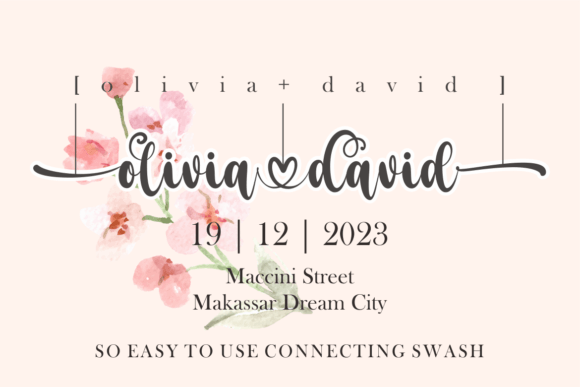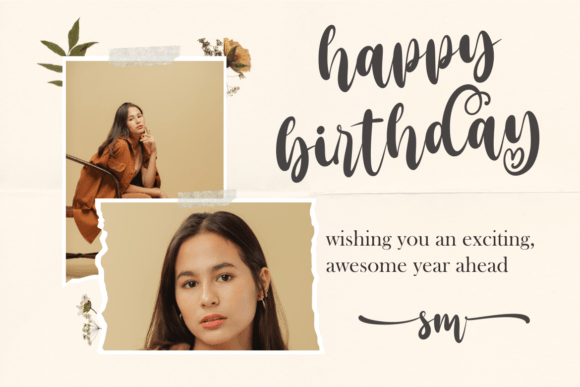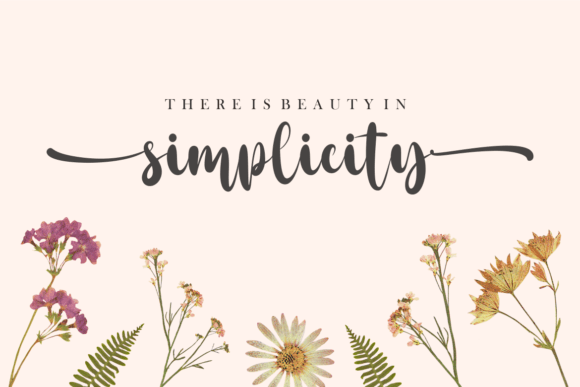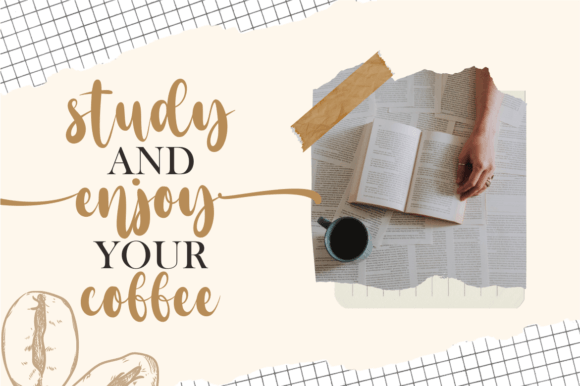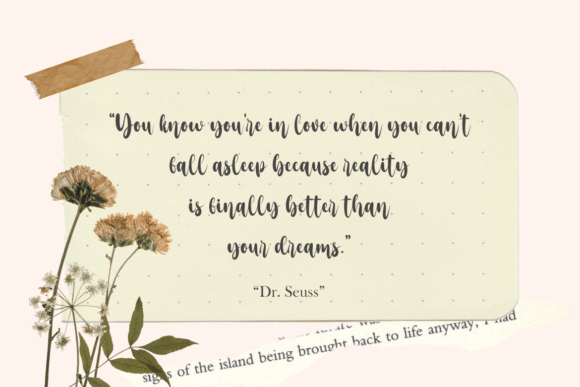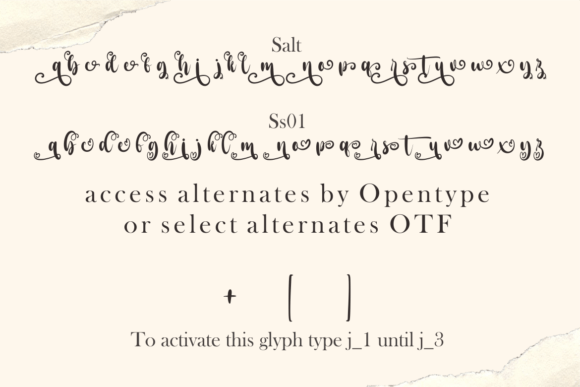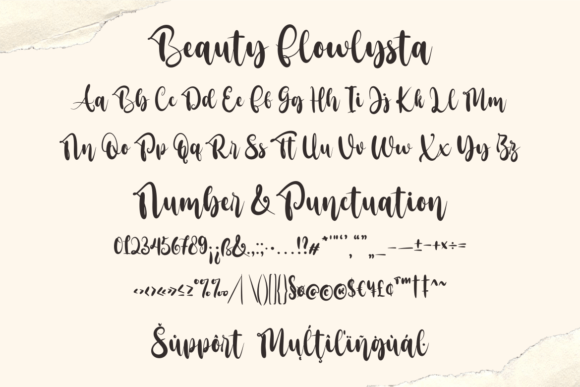
About Beauty Flowlysta Font
Beauty Flowlysta is a stylish and modern handwritten font, suitable for a wide spectrum of applications. From greeting cards to headlines, this font will guarantee a romantic touch to each of your creations!
Beauty Flowlysta is PUA encoded which means you can access all of the glyphs and swashes with ease.